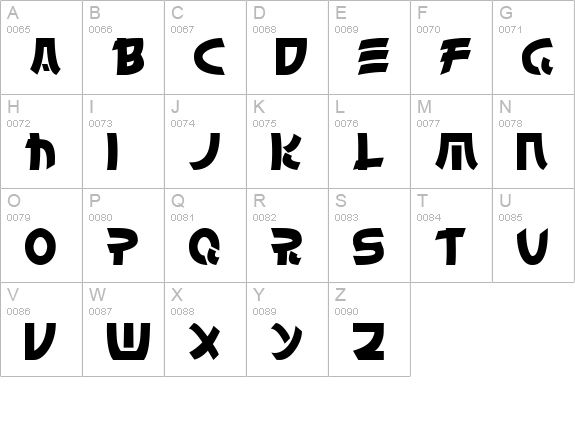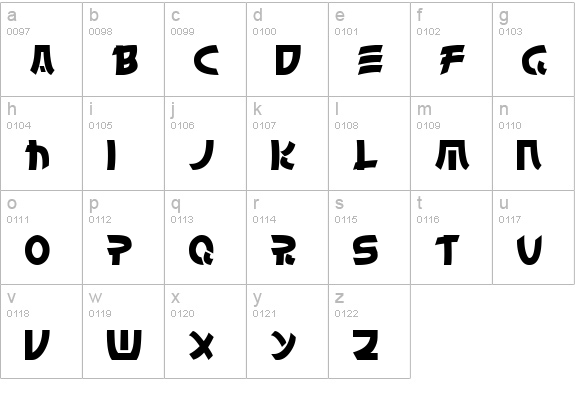
Chinyen Normal is the standard, neutral variant in the Chinyen typeface family \xE2\x80\x94 well suited to general body text, paragraphs, and standard typographic work.
Chinyen Normal font is a versatile and elegant typeface that exudes sophistication and charm. Its clean lines and balanced curves make it perfect for a wide range of design projects, from branding to editorial work. This font is ideal for creating a polished and professional look, while still maintaining a touch of creativity. The Chinyen Normal font is freely available to download at FontsMarket.com, making it accessible to designers and creatives looking to enhance their projects with a high-quality typeface. Whether you're working on a logo, website, or print materials, Chinyen Normal font will elevate your design and help you stand out from the crowd. With its timeless appeal and modern sensibility, Chinyen Normal font is a must-have addition to any designer's toolkit. Download it today and unleash your creativity with this beautiful and versatile typeface.